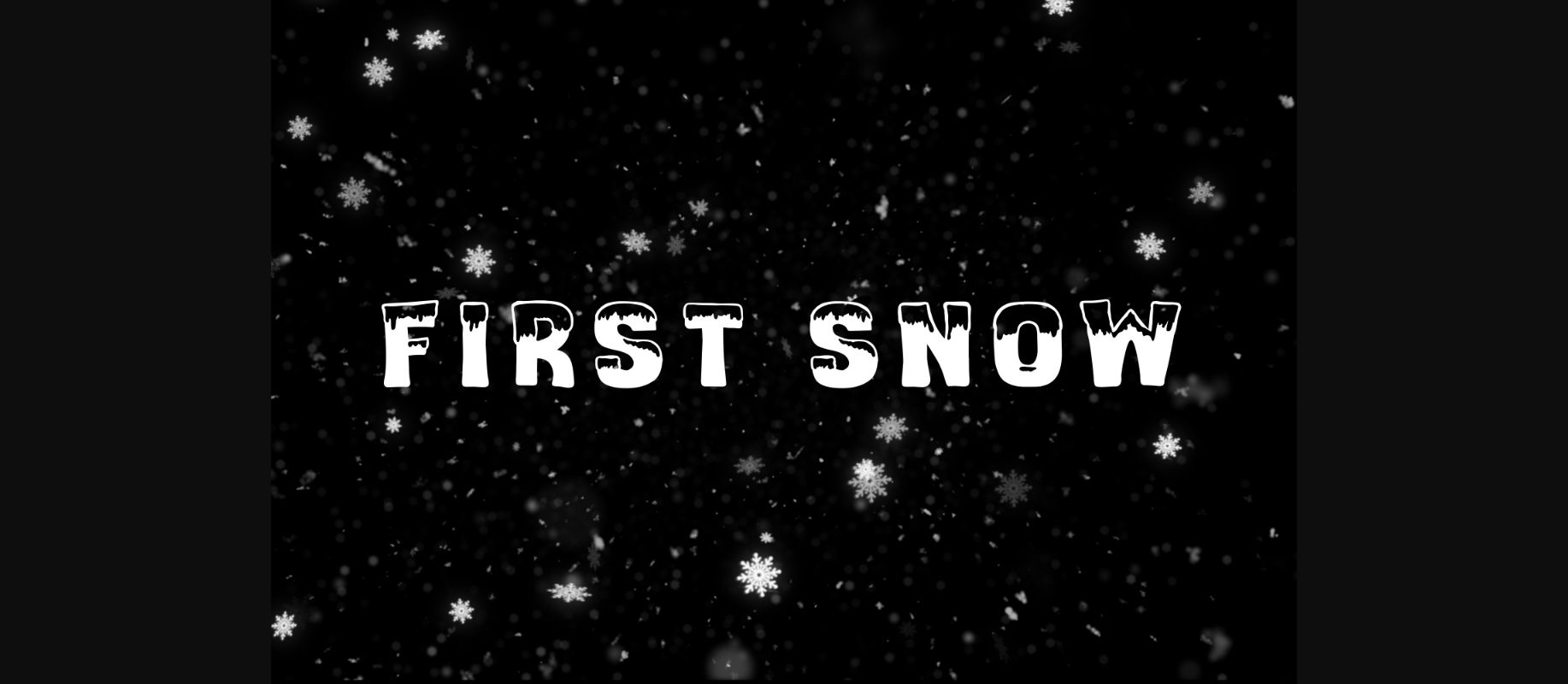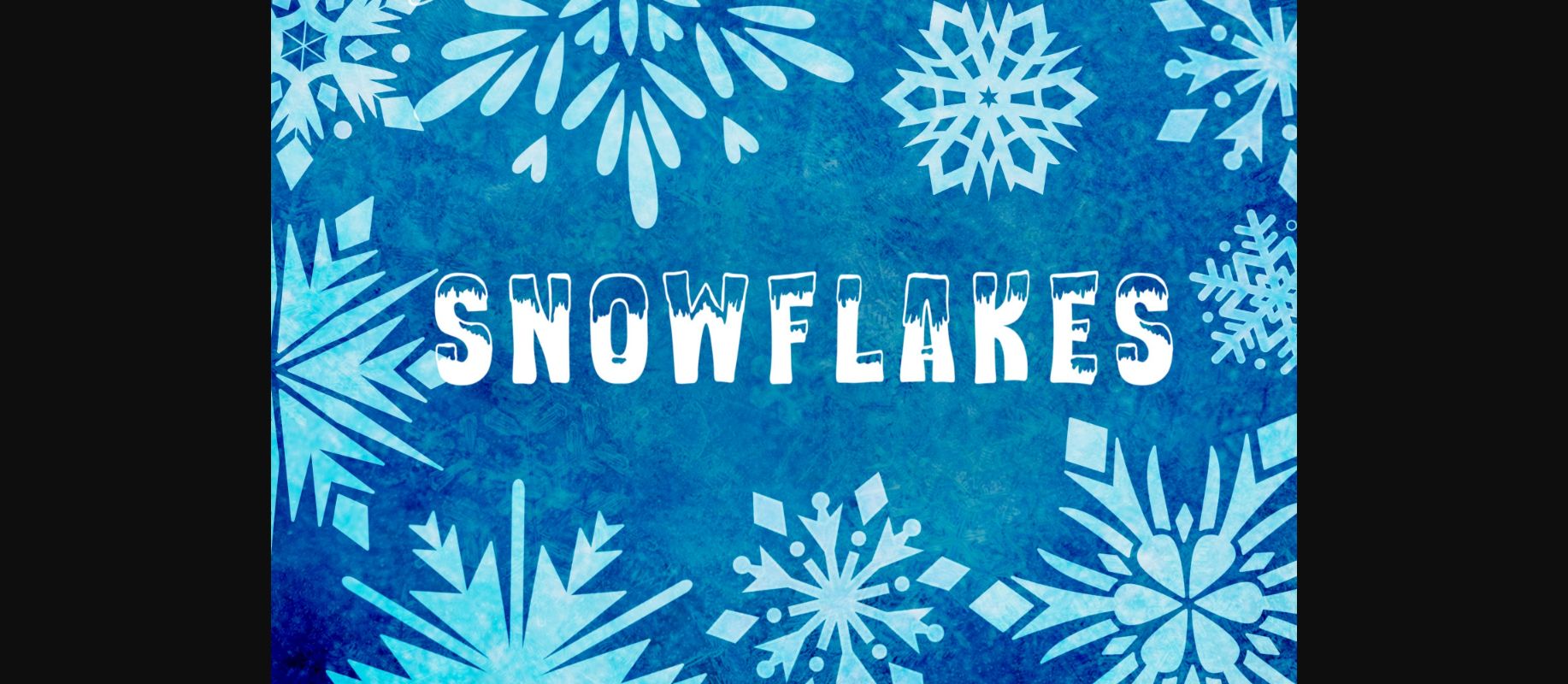
About First Snow Font
A playful, hand-drawn, decorative font, inspired by Christmas and snow. Ideal for your Christmas-y projects, it is guaranteed to make an impact!